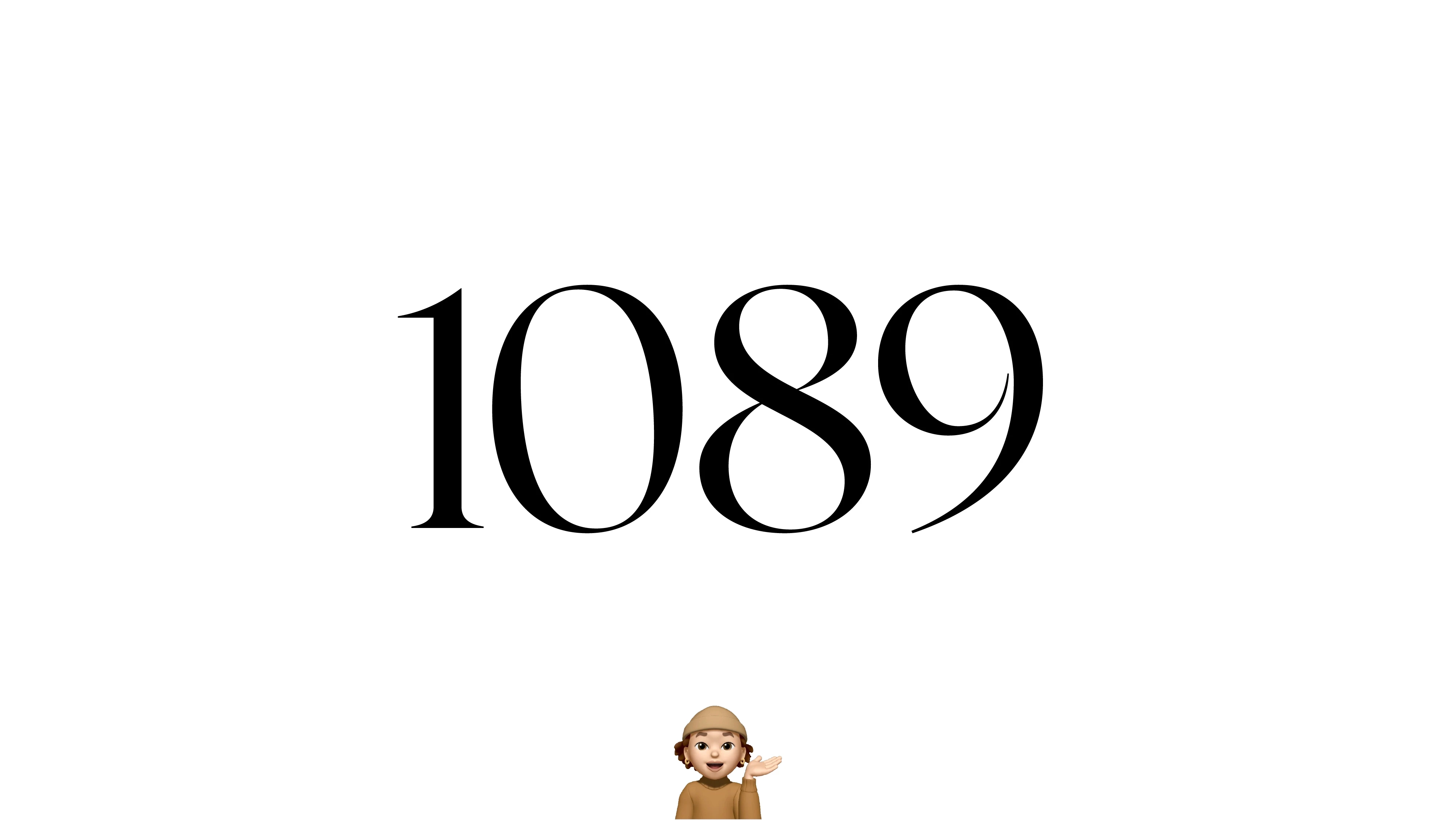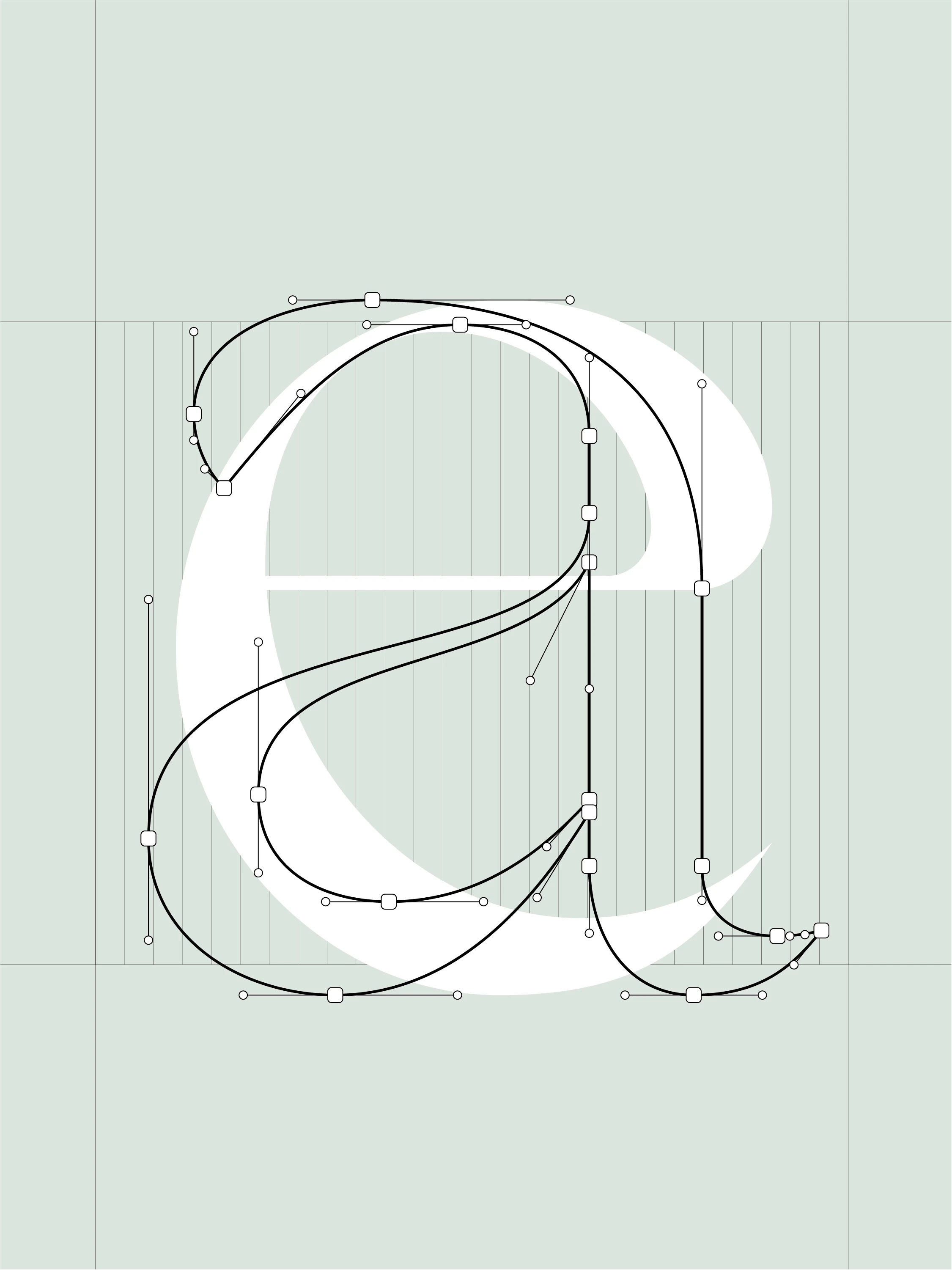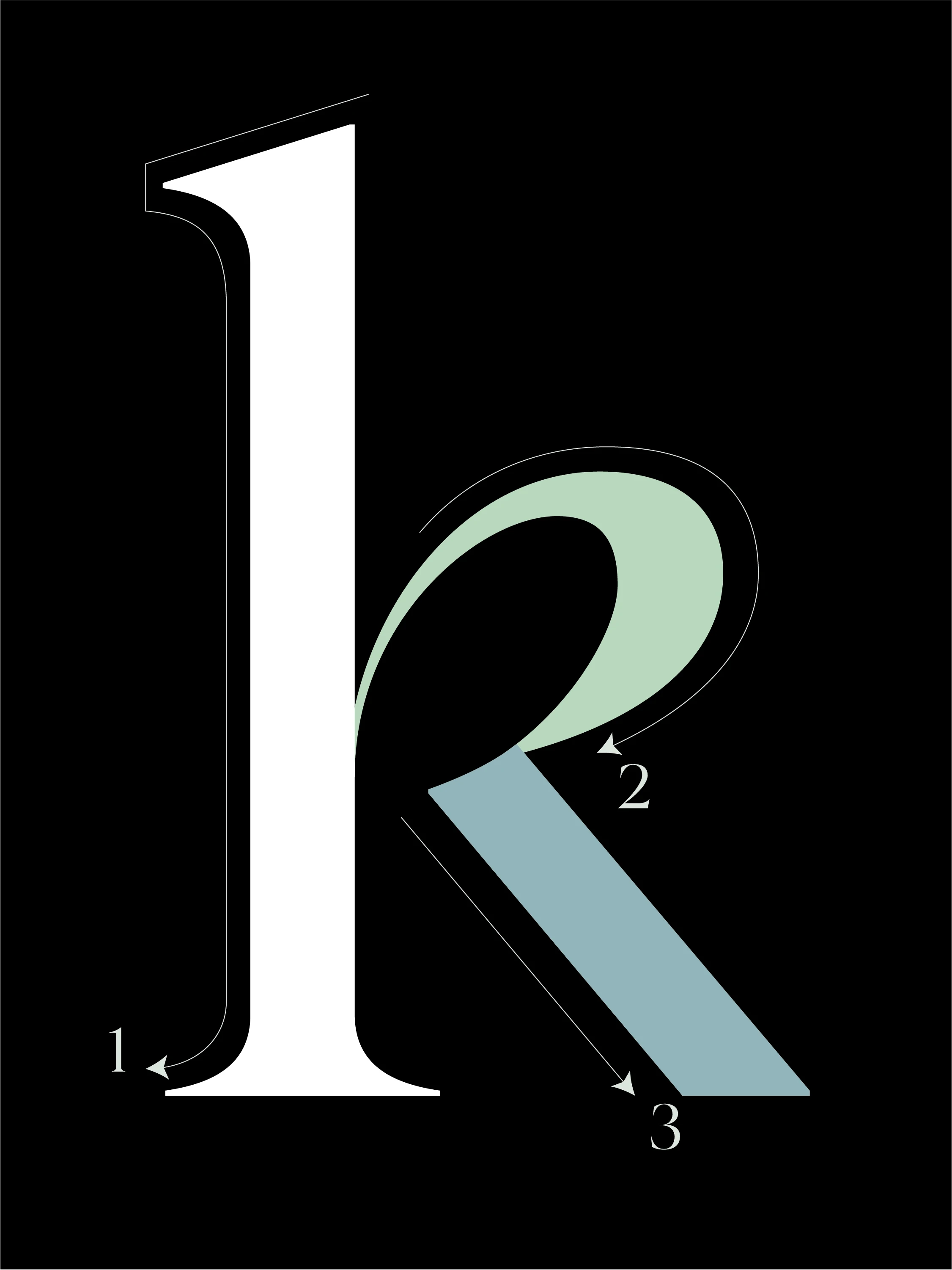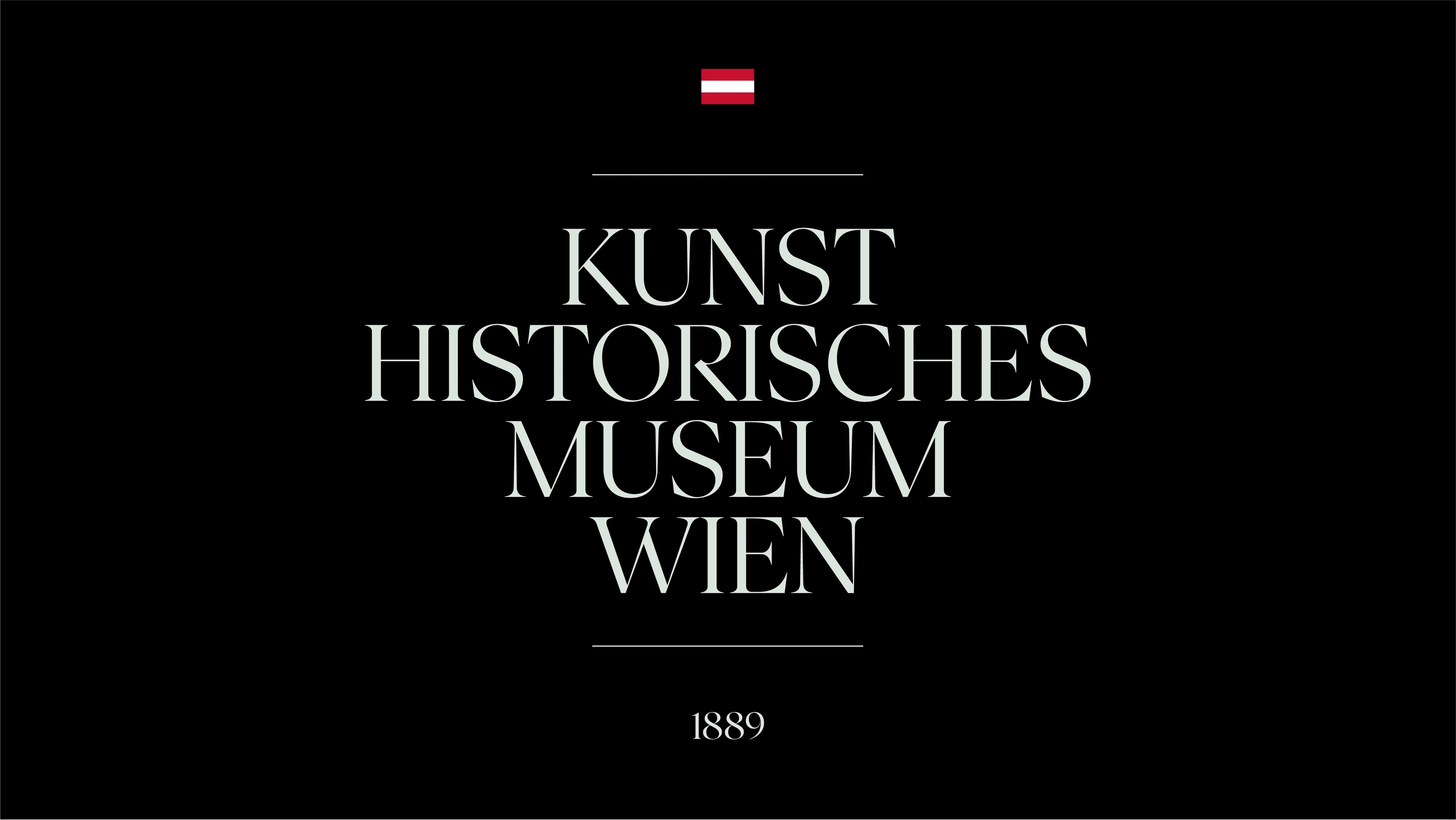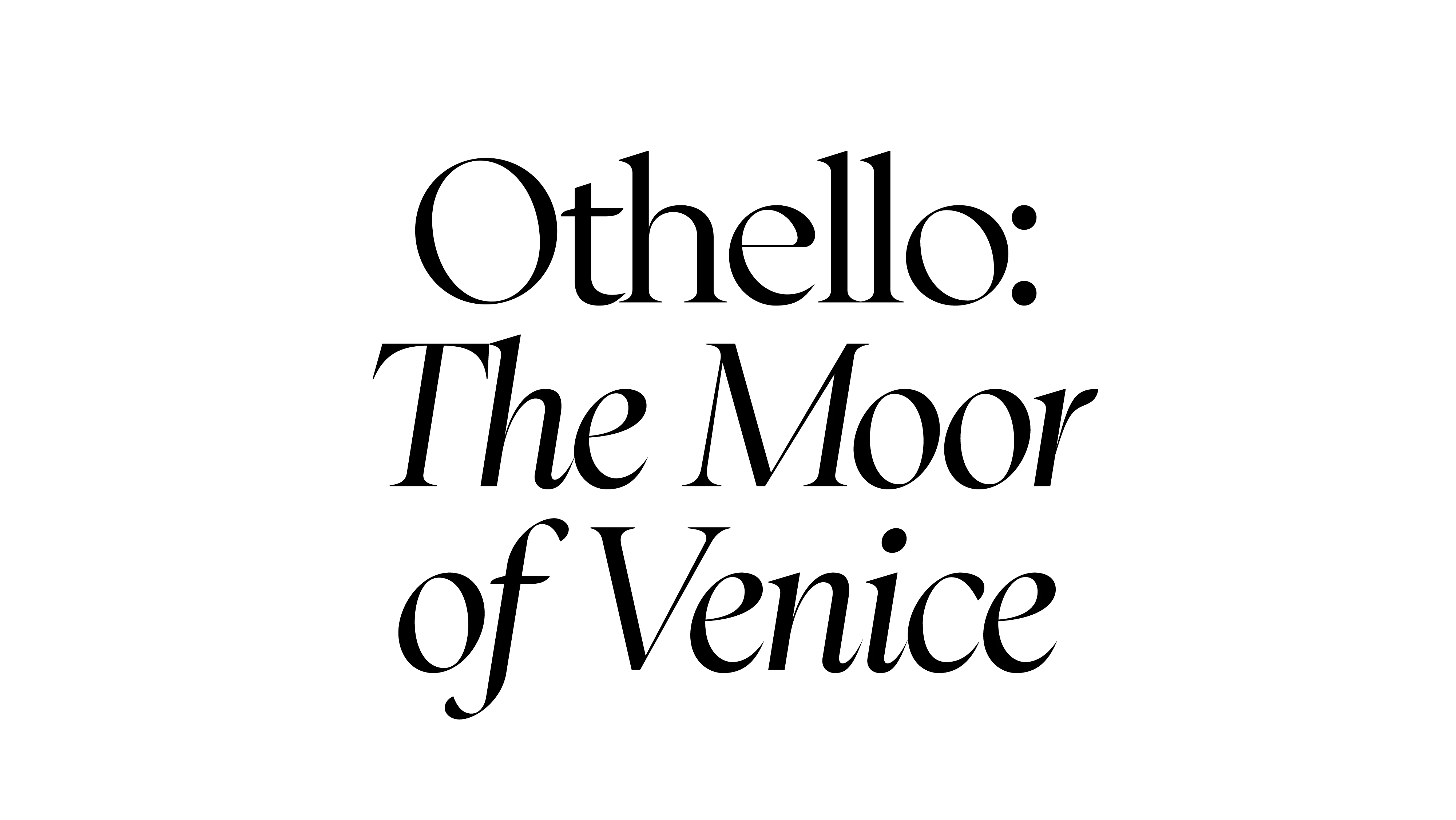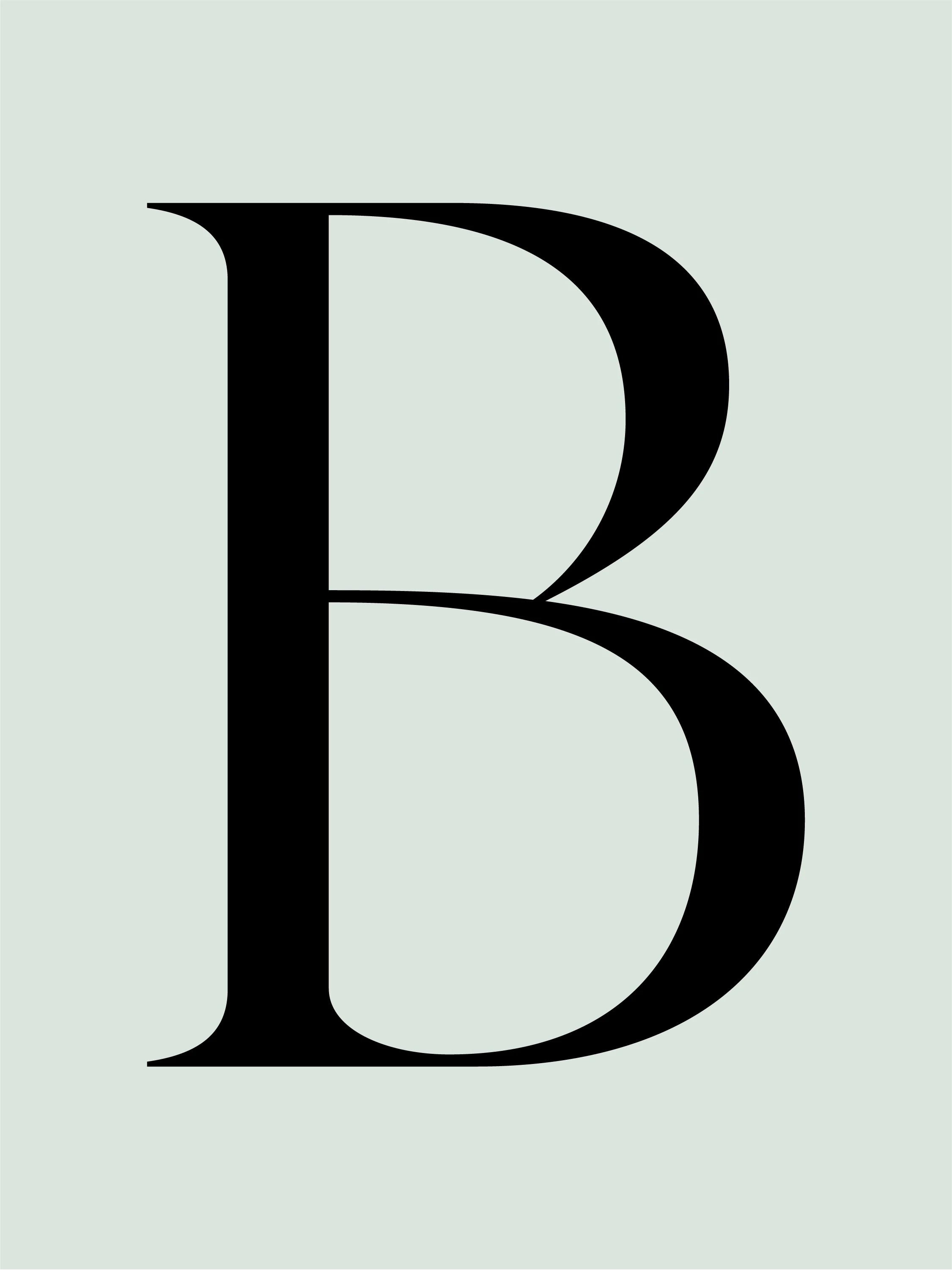
FH 1089 carries the refinement of 18th-century serif typography into a contemporary setting. Inspired by the grace of Fleischman’s roman types, it explores calligraphic nuance through sharp contrasts and precise construction. Angular cuts within rounded forms and carefully reimagined lowercase details bring a renewed clarity to a classical foundation. It is a typeface shaped by history, yet attuned to the present.
Classification: Modern / Transitional Serif